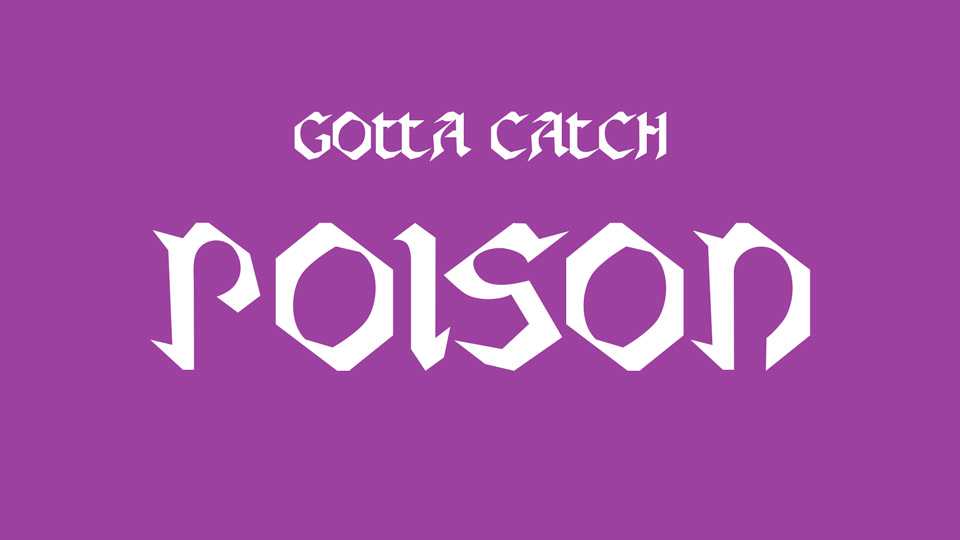
Download Gotta Catch Poison font, an experimental strong and sharp typeface designed during a type design initiation workshop given by Lucas Descroix in March 2021.
Designer: Enora Pichavant